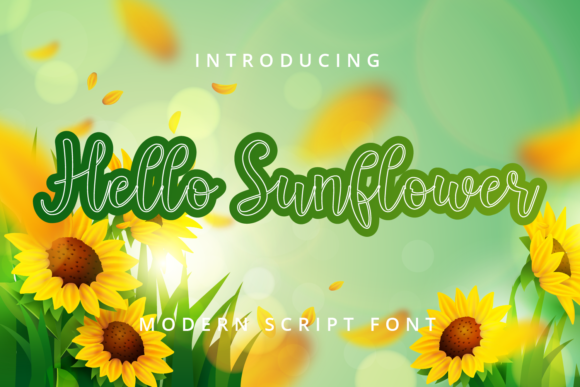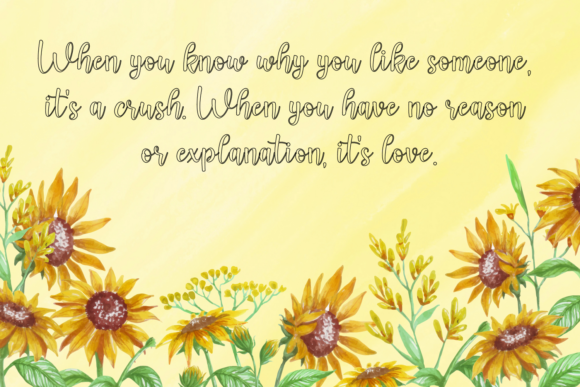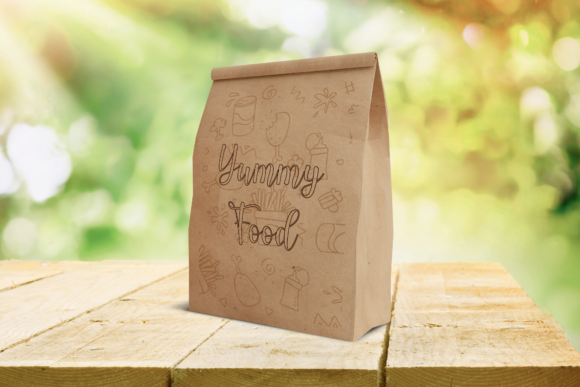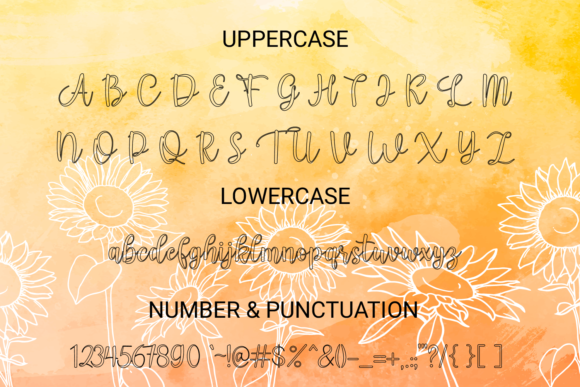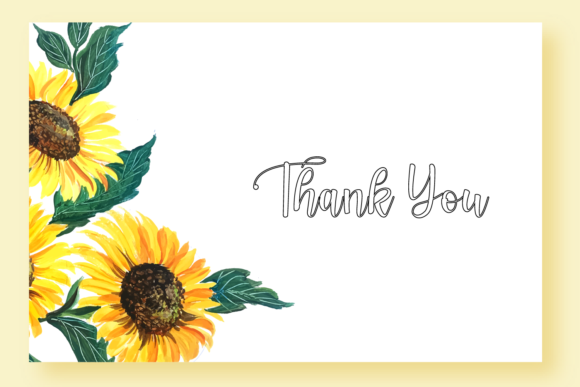
Discover the Timeless Charm of Hello Sunflower Font
There’s something magical about watching the sun rise over a field of sunflowers, their bright yellow petals stretching towards the sky like nature’s own brushstrokes. It’s a moment that sparks creativity and inspires us to capture its essence in our designs. For many designers, finding the perfect font to evoke this feeling can be a challenge.
That’s where the Hello Sunflower Font comes in – a beautiful and timeless handwritten font that adds a romantic touch to any design. With its elegant curves and whimsical flair, this font is perfect for designers looking to add a touch of warmth and personality to their projects. Whether you’re working on a wedding invitation, a children’s book, or a branding campaign, the Hello Sunflower Font is a valuable addition to your toolkit.
Hello Sunflower Font Key Features
- Font Family: Hello Sunflower is a unique, handwritten font with a playful and whimsical feel. It features a combination of rounded and pointed letterforms, making it perfect for adding a touch of personality to your designs.
- Unique Characteristics: The font features a mix of uppercase and lowercase letters, as well as a range of punctuation marks and symbols, making it a versatile choice for designers.
- Language Support: Hello Sunflower font supports a wide range of languages, including Latin, Cyrillic, and Greek alphabets, making it suitable for international designs.
Hello Sunflower Font Review
Overall, I think the Hello Sunflower Font has some great qualities that make it suitable for certain design projects. ✨ The font’s playful and cheerful vibe is perfect for children’s books, greeting cards, and other whimsical designs. The font’s curves and rounded edges give it a friendly feel that’s hard to resist.
One of the strengths of the font is its legibility. ✨ The letters are well-designed and easy to read, even at smaller font sizes. This makes it a great choice for body text or headlines where clarity is key.
Here are some specific features that work well:
- Customizable: The font comes in a range of styles and weights, allowing you to mix and match to suit your design needs.
- Scalable: The font looks great at both large and small sizes, making it versatile for various design applications.
- Fun and quirky: The font’s playful personality adds a touch of whimsy to any design project.
- Not suitable for serious or formal designs: The font’s lighthearted nature may not be the best fit for corporate or professional projects.
- May be too ornate for some designs: The font’s intricate details can be overwhelming if used in excess.
Overall, I think the Hello Sunflower Font is a great addition to any designer’s toolkit. It’s perfect for projects that require a touch of playfulness and whimsy, but may not be the best choice for more serious or formal designs.
Tips for Getting the Most Out of Hello Sunflower Font
Use the Hello Sunflower Font for creative and whimsical projects, such as children’s books, party invitations, and greeting cards.
Combine the font with bright colors and playful illustrations to create a unique and eye-catching design.
Experiment with different font sizes and styles to add depth and visual interest to your design.
Hello Sunflower Font is perfect for:
Children’s books and educational materials
Party invitations and event graphics
Greeting cards and stationery
Brand identity and logo design